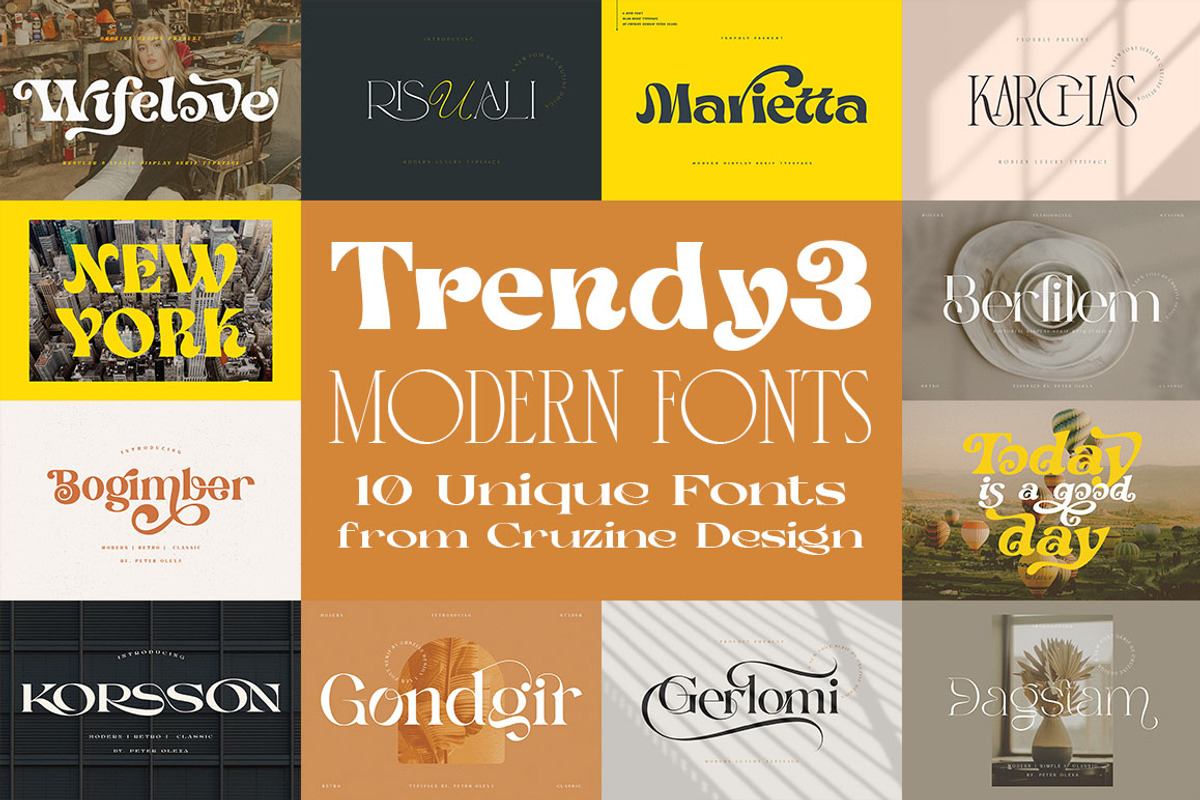
Elevate your designs with Trendy & Modern Fonts 3 - 10 Sets Free Download — a dynamic collection of ten stylish and modern typefaces designed to bring fresh energy to your creative projects. Perfect for branding, social media, editorial design, product packaging, and website typography, this bundle gives you all the versatility you need to create stunning visuals.
Each font set in this collection is meticulously crafted to fit both contemporary and classic design trends. Whether you're working on a minimalist logo, a bold headline, or a stylish body text, these fonts deliver the clarity and sophistication you need. The bundle includes uppercase and lowercase letters, punctuation, numerals, and multilingual support, offering unlimited design possibilities.